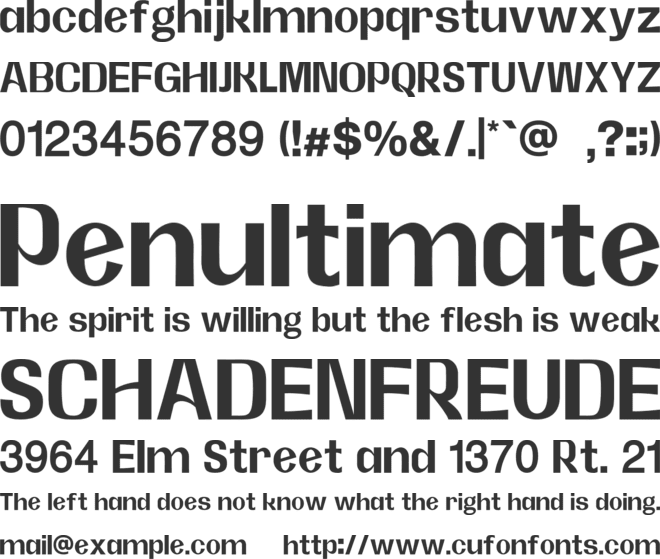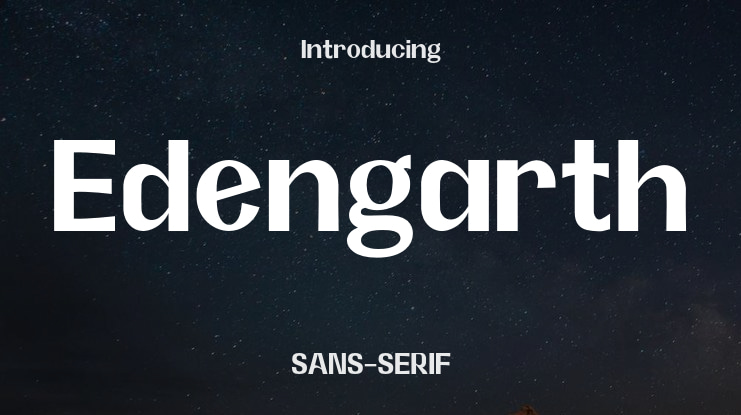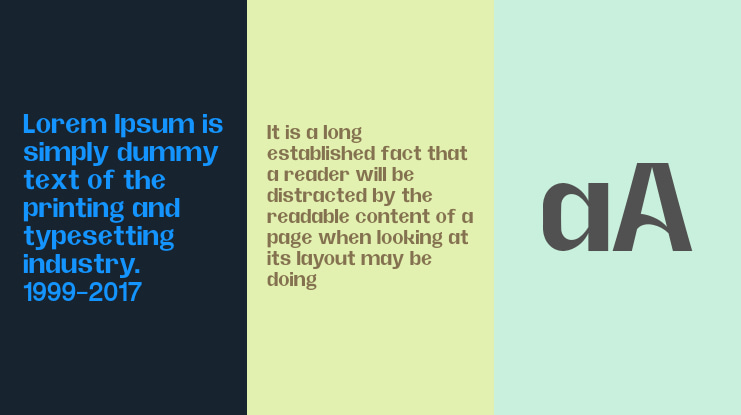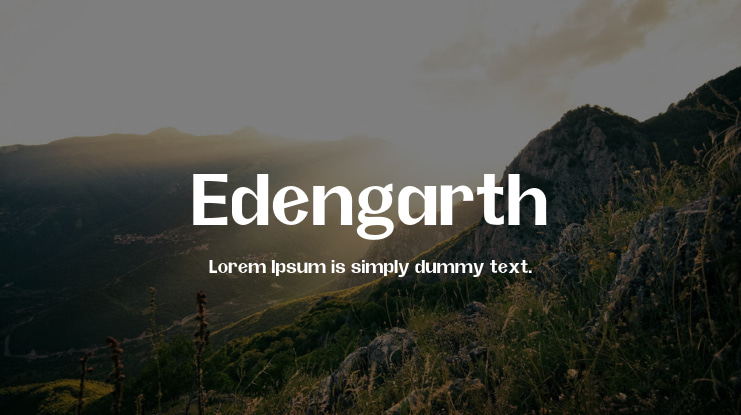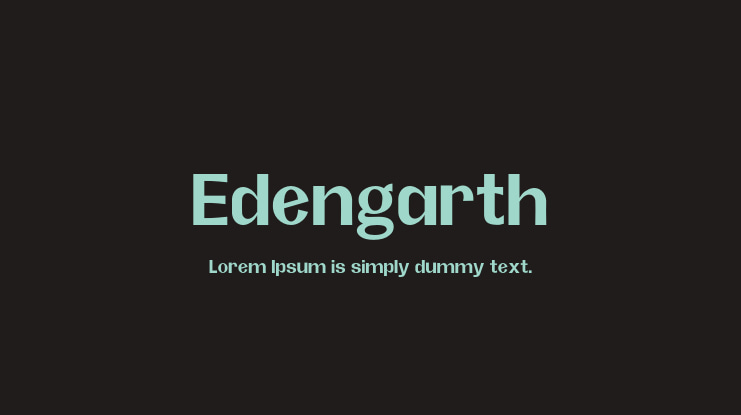
Edengarth Font
Edengarth is an elegant and versatile typeface that combines modern style with timeless sophistication. It is crafted to capture attention and make a lasting impact on a variety of design projects. With its harmonious proportions and intricate details, Edengarth adds a touch of refinement to each letter. If you're interested in using this font for commercial purposes, you can purchase it from the following link: [Edengarth Sans Serif Typeface](https://creativemarket.com/NazmulsDesign99/115923211-Edengarth-Sans-Serif-Typeface?u=fontspace&utm_source=fontspace.com).